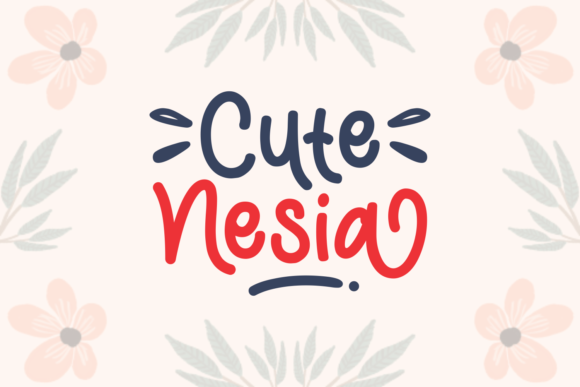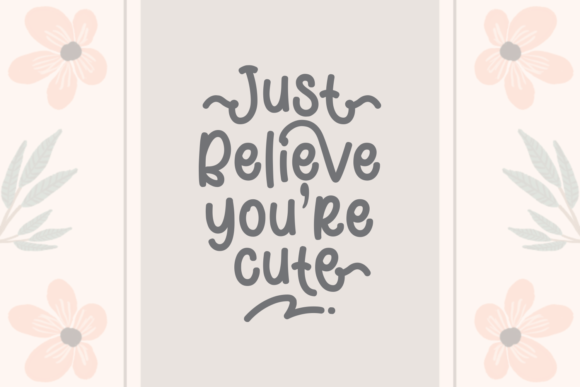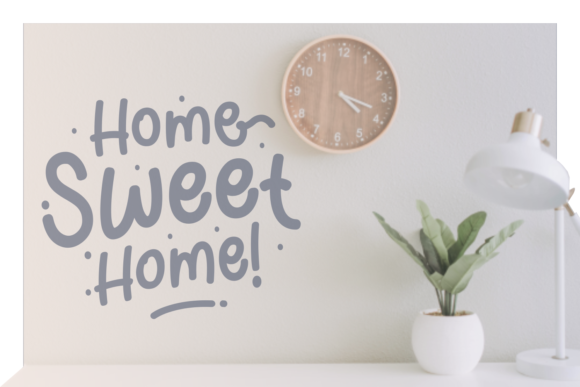
Cute Nesia Font
About Cute Nesia Font
Cute Nesia is a fun and bold handwritten font with a unique feel. It will turn any design project into a stand out!